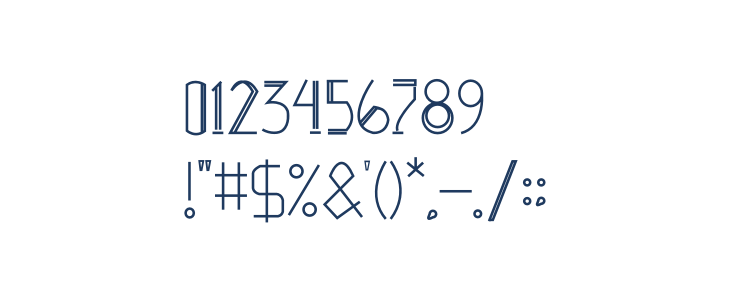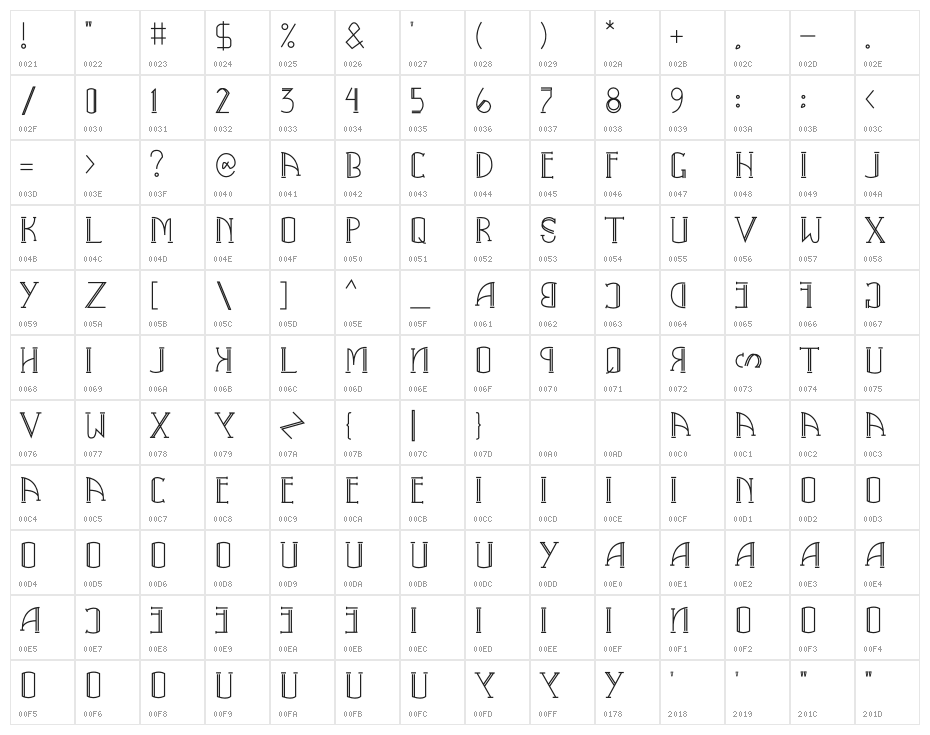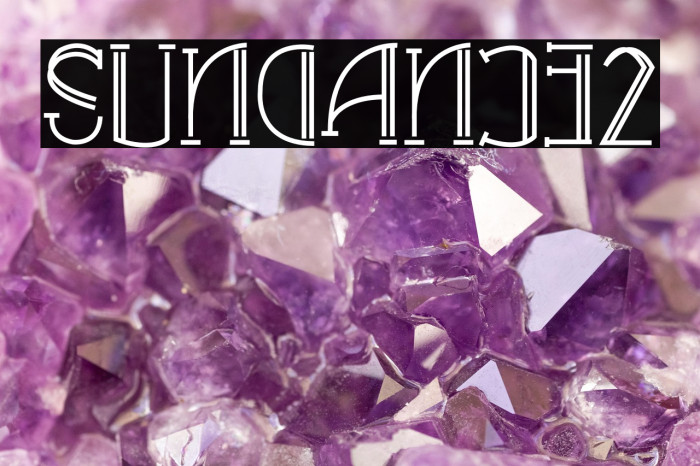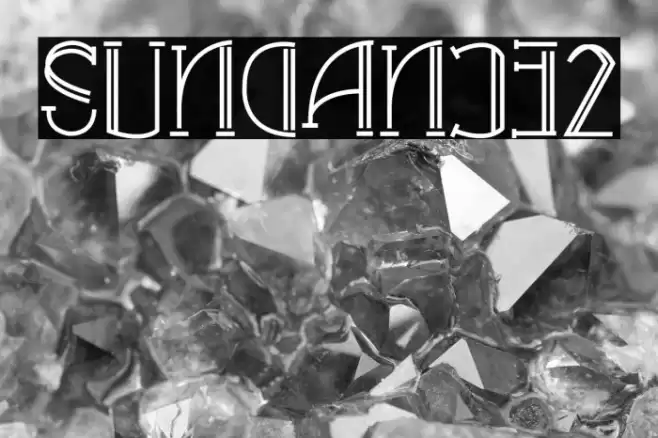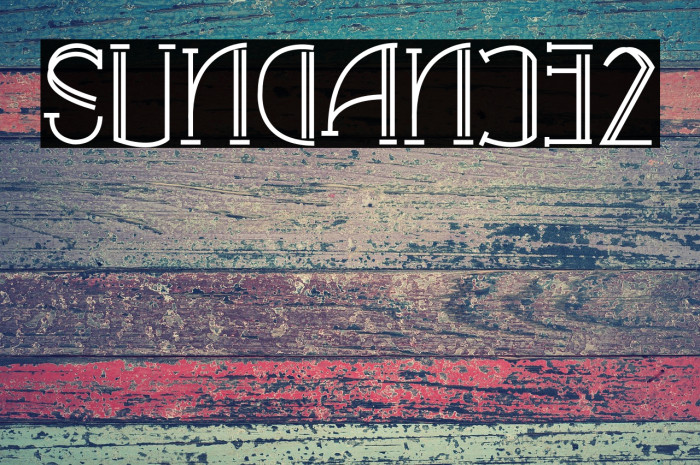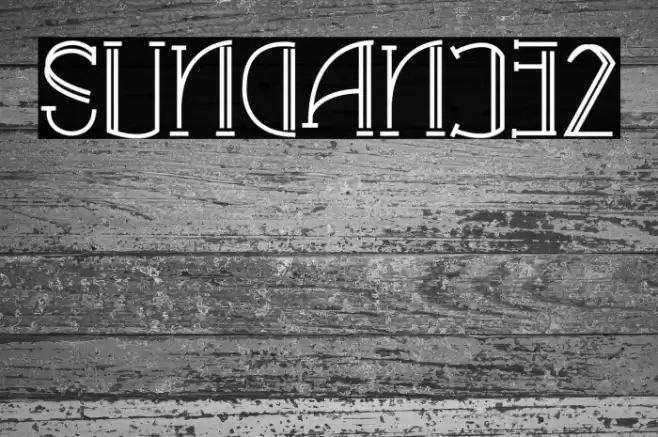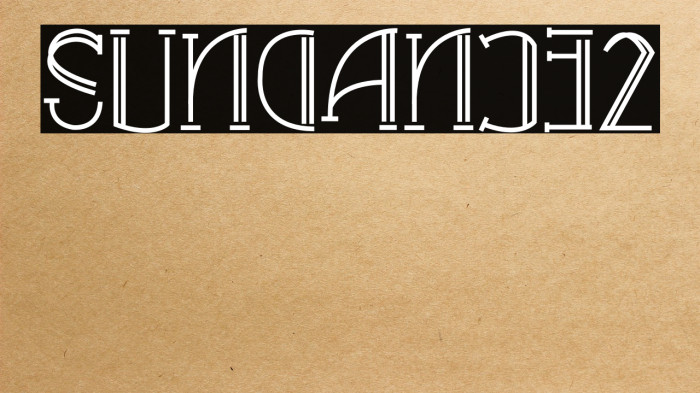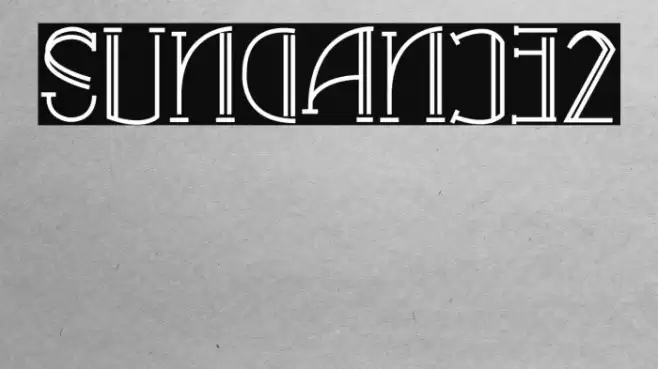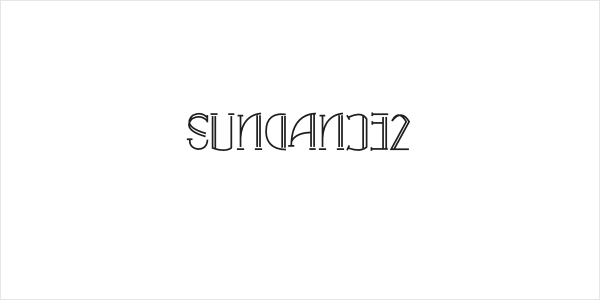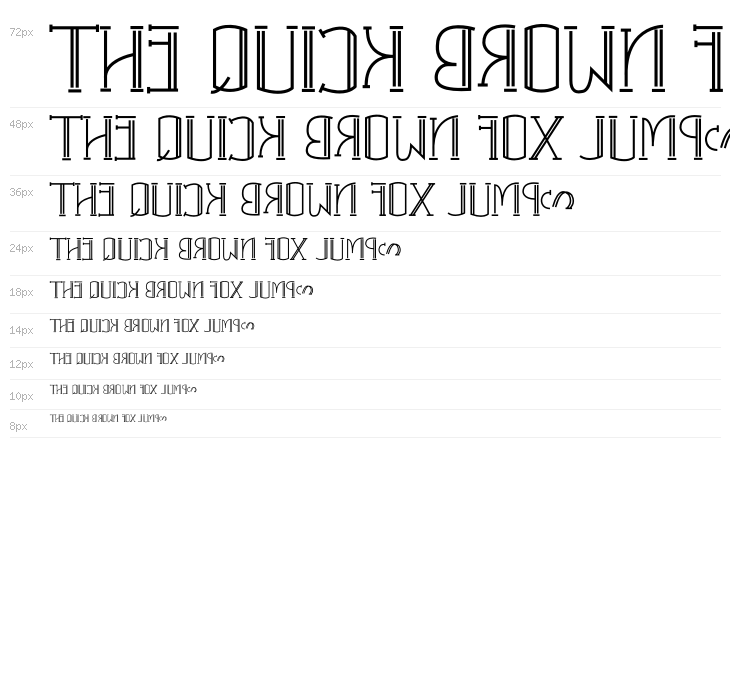
Sundance2 Font
Sundance2 Description
This font features a unique blend of geometric and art deco elements, characterized by its sharp angles and distinct line breaks. The uppercase letters are bold and structured, with a consistent vertical emphasis that gives them a modern, architectural feel. The lowercase letters maintain this geometric style, offering a cohesive look across the typeface. Numbers and special characters follow the same design principles, ensuring uniformity. The font's clean lines and sharp edges make it stand out, while the spacing between characters is balanced, providing readability and aesthetic appeal.
| Overall Style | Modern, Art Deco |
| Proposed Projects | Ideal for branding, posters, and editorial design where a modern, stylish look is desired. |